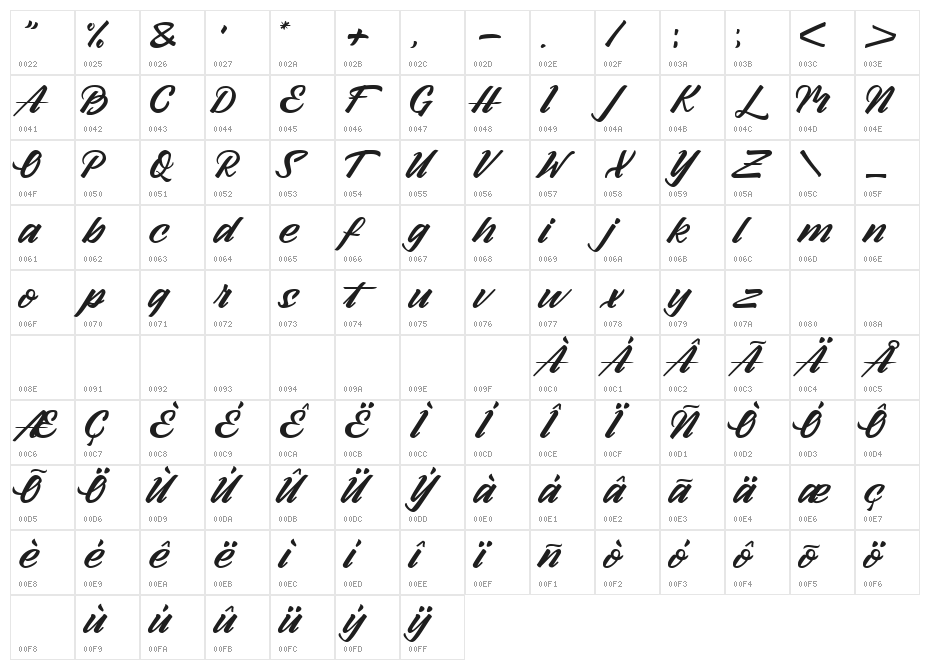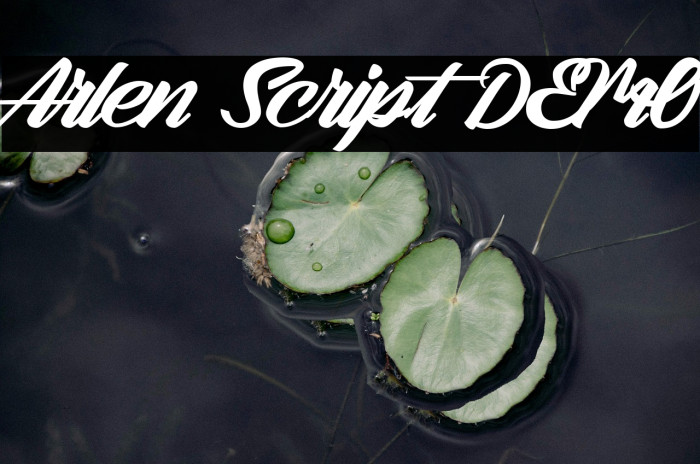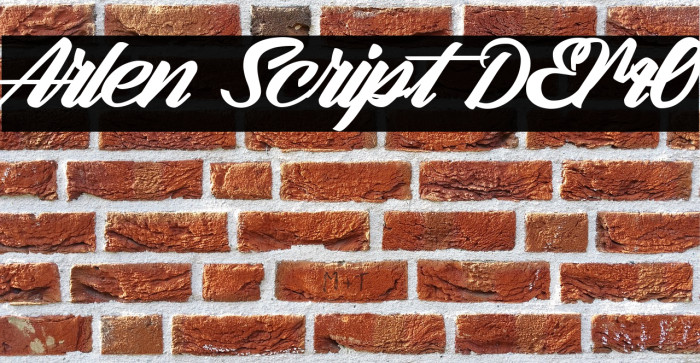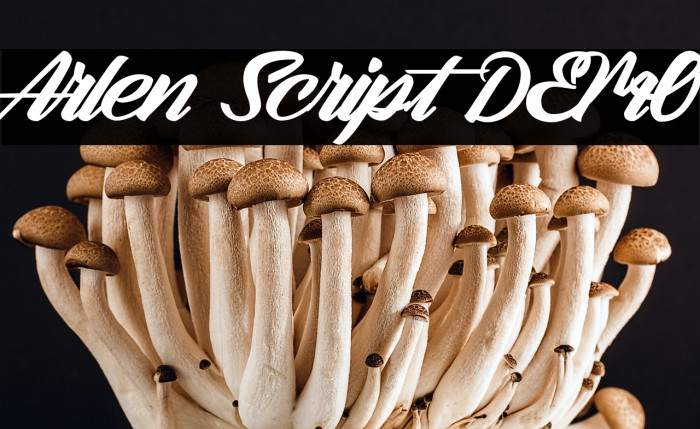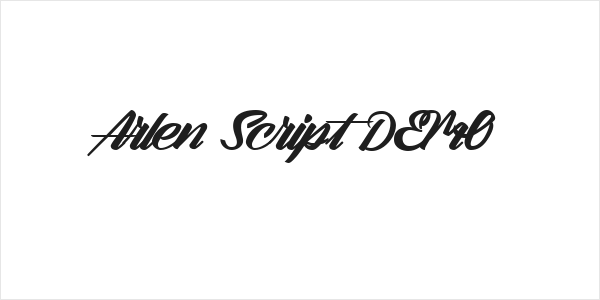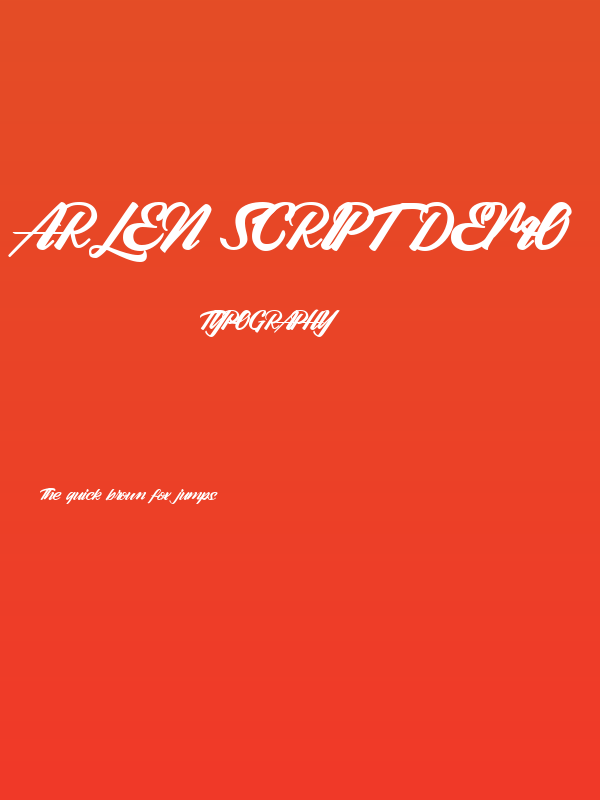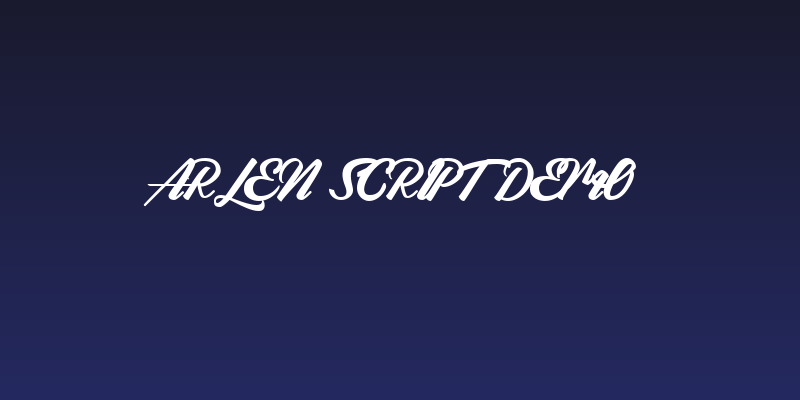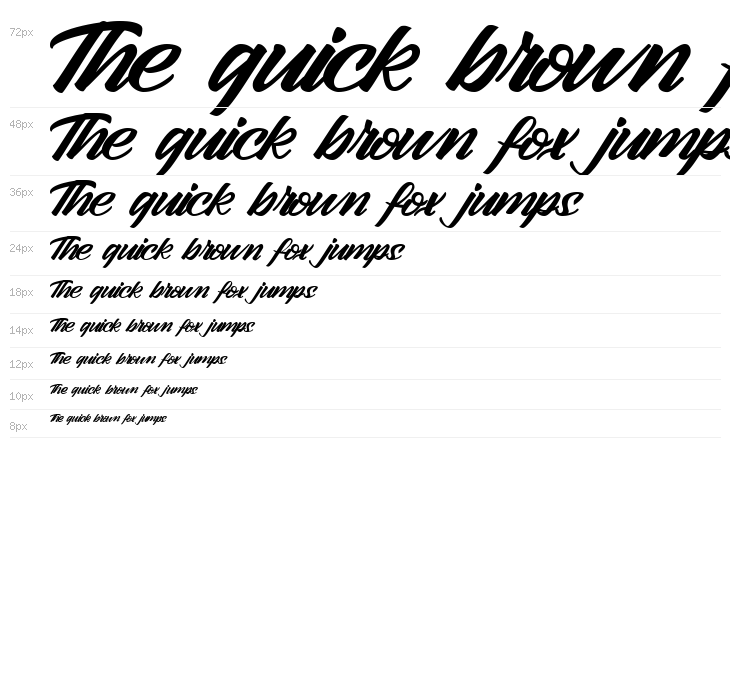
Arlen Script DEMO Font
Arlen Script DEMO Description
This font exhibits a bold and flowing script style, characterized by its elegant and cursive letterforms. The strokes are thick and consistent, creating a sense of fluidity and movement. Each character is intricately designed with smooth curves and a slight slant, giving it a dynamic and lively appearance. The uppercase letters are particularly ornate, with flourishes that enhance their decorative quality. The lowercase letters maintain a cohesive look, complementing the uppercase with their rounded and connected forms. This font is well-suited for projects that require a touch of sophistication and flair.
| Use Case | Logos, Headlines, Invitations |
| Proposed Projects | Ideal for wedding invitations, branding, logo design, and elegant packaging. |